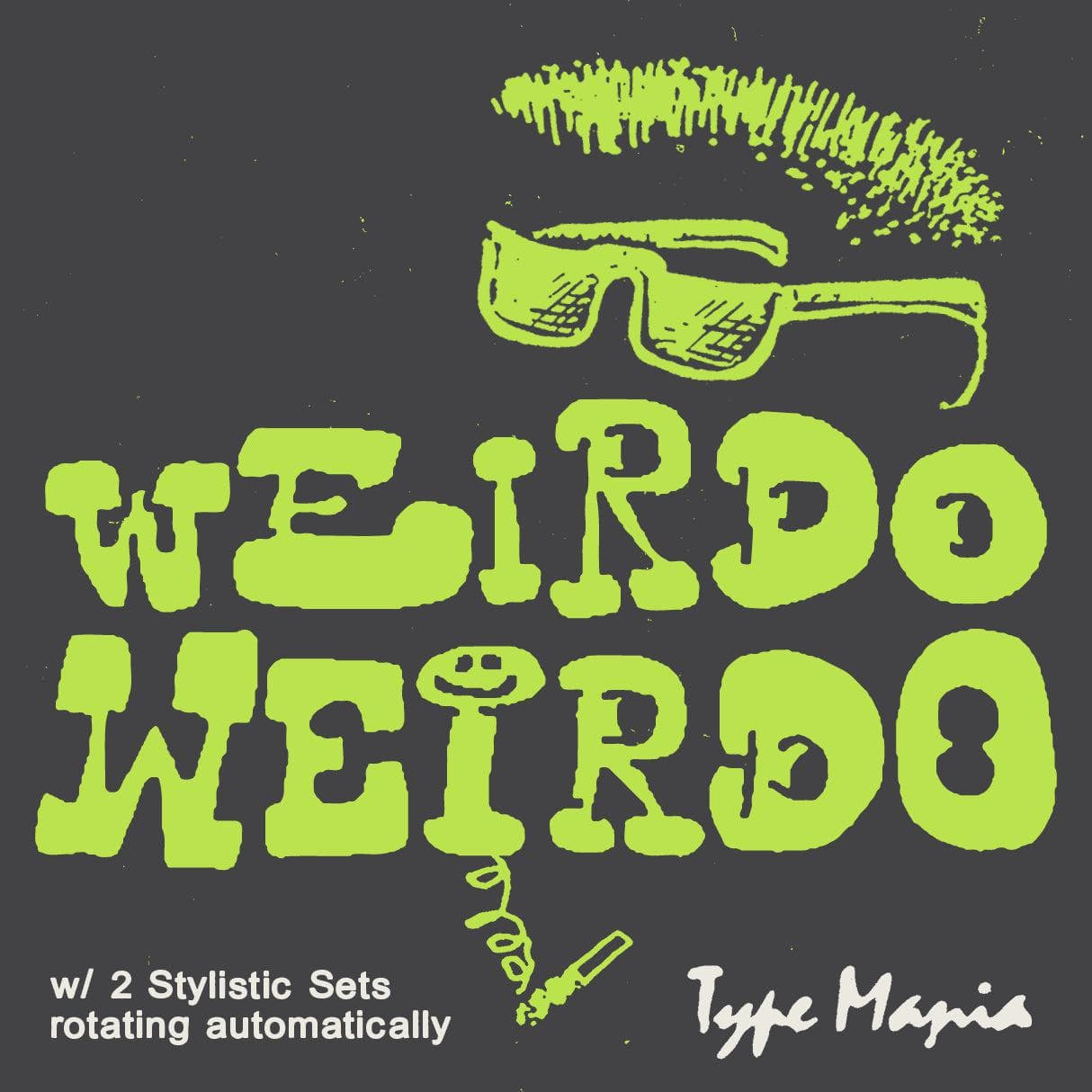
<p>Unleash your inner fReAk with the delightfully odd <strong>Weirdo TM</strong>. Unpredictable, unconventional, and unruly – this handwritten font seasons you design with that extra sauce.</p> <p><strong>Zip includes</strong></p> <ul> <li>OTF file</li> <li>TTF file</li> <li>WOFF2 file</li> </ul> <p><strong>OpenType features</strong></p> <ul> <li>2 stylistic sets</li> <li>The font is programmed to automatically shift between the stylistic sets</li> </ul> <p><strong>Languages</strong></p> <ul> <li>Basic Latin</li> <li>Western European</li> <li>Euro</li> <li>Central European</li> <li>Pan African Latin</li> </ul> <p><em>Graphic Design is Easy (with Type Mania)®</em></p>